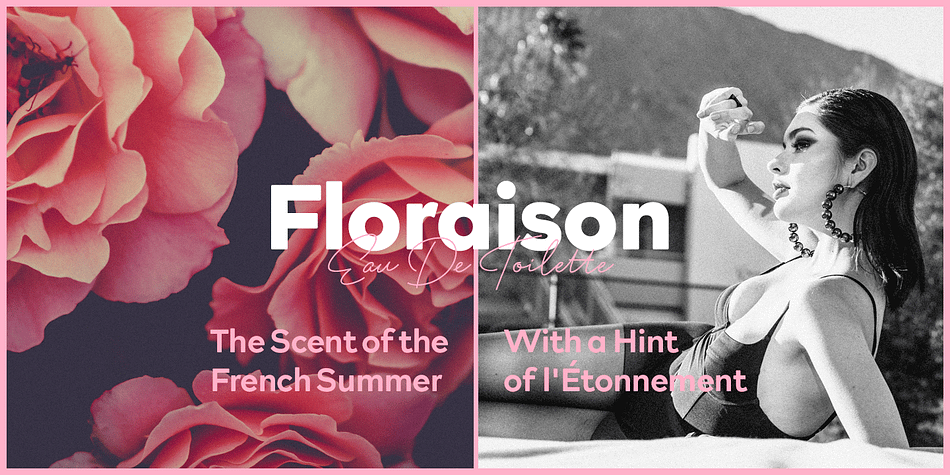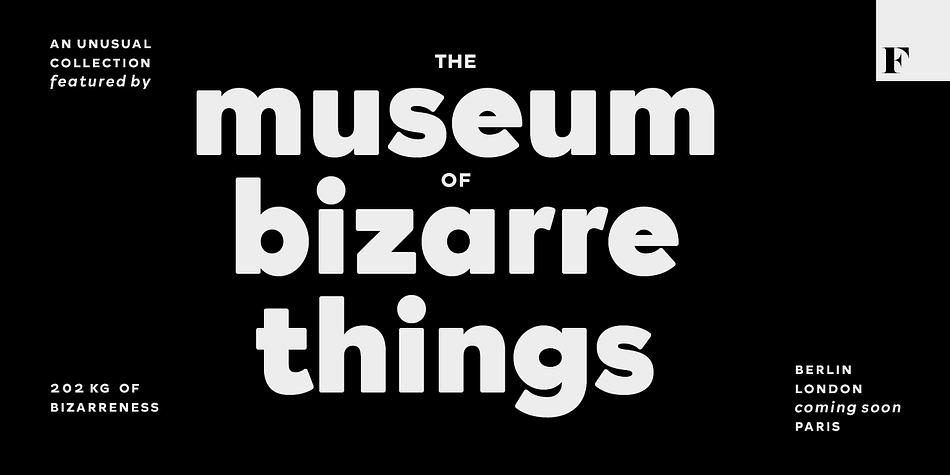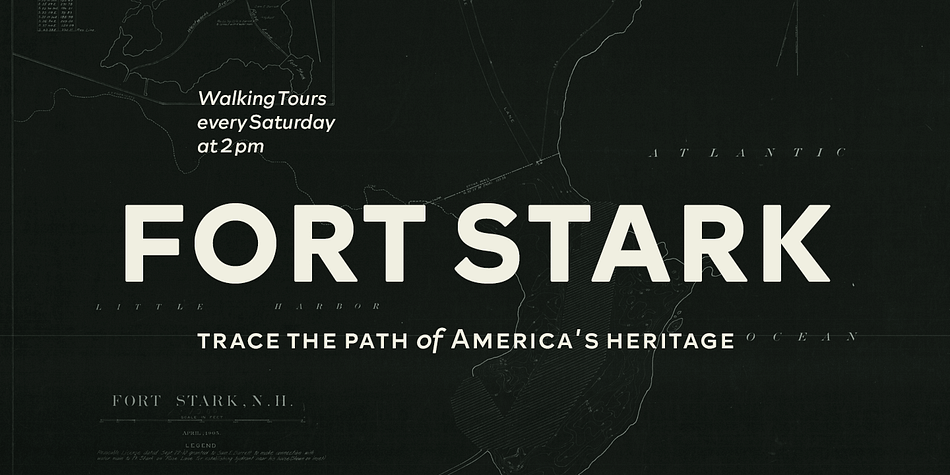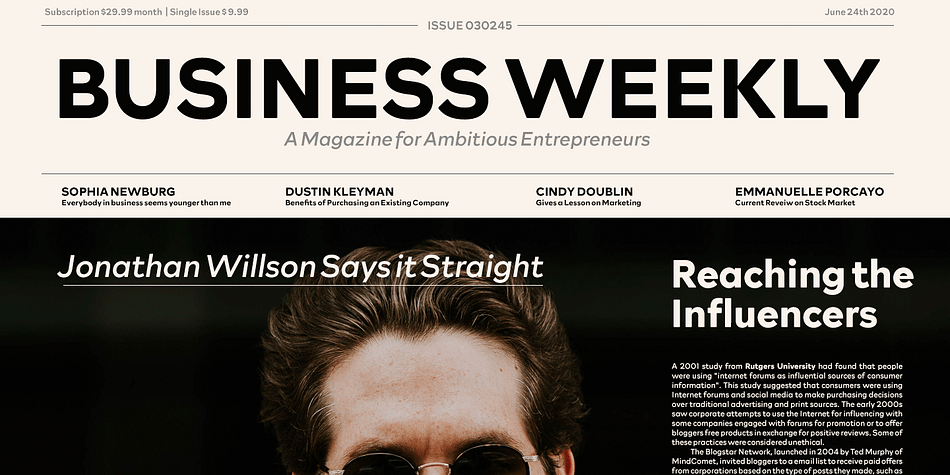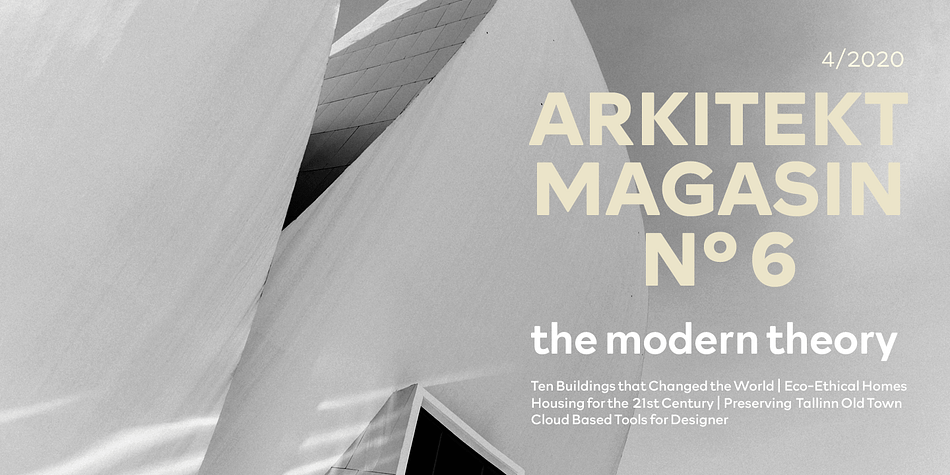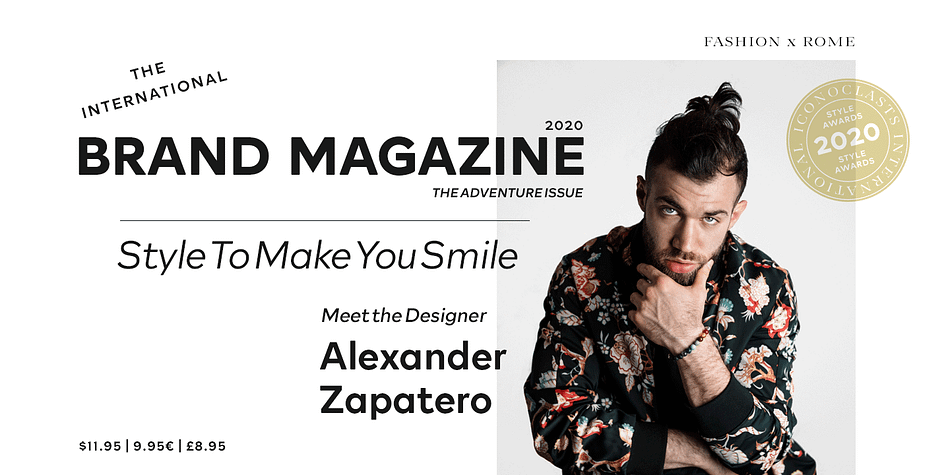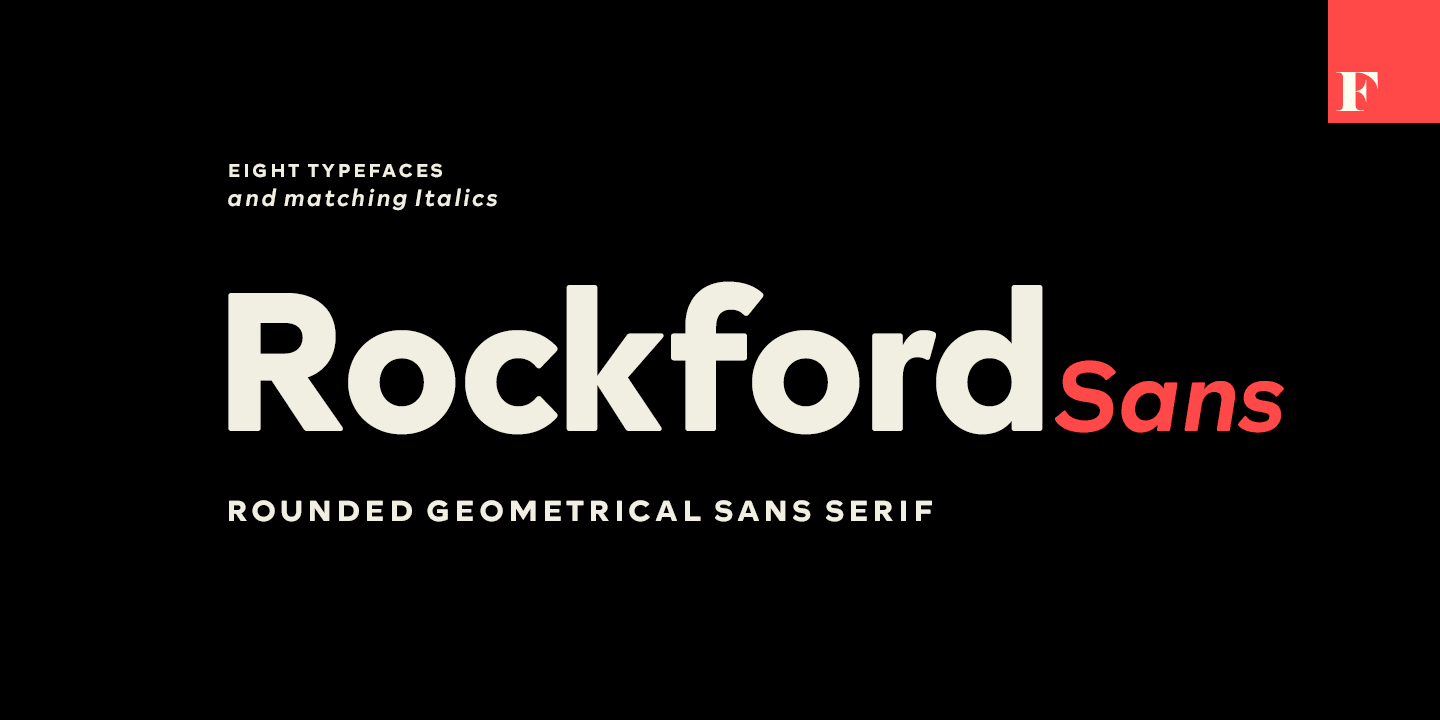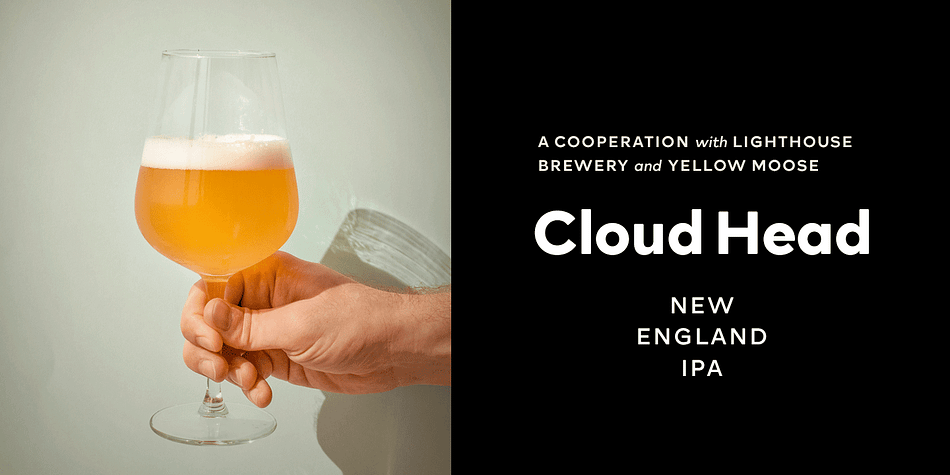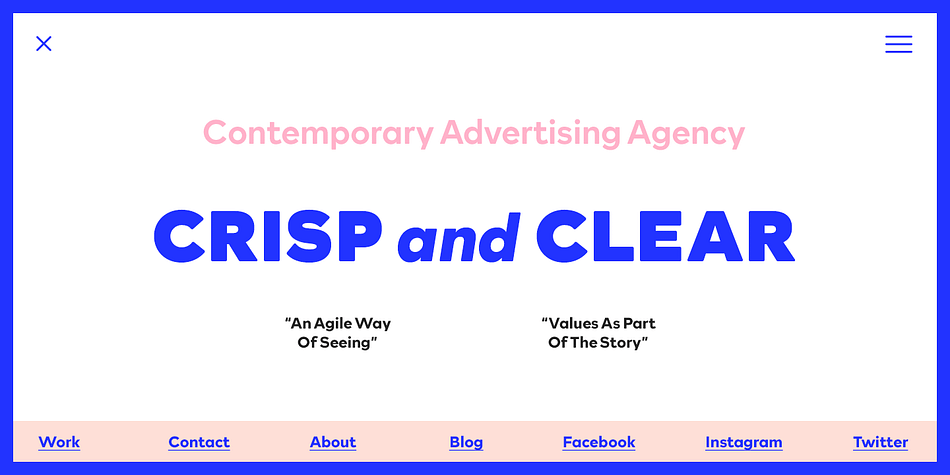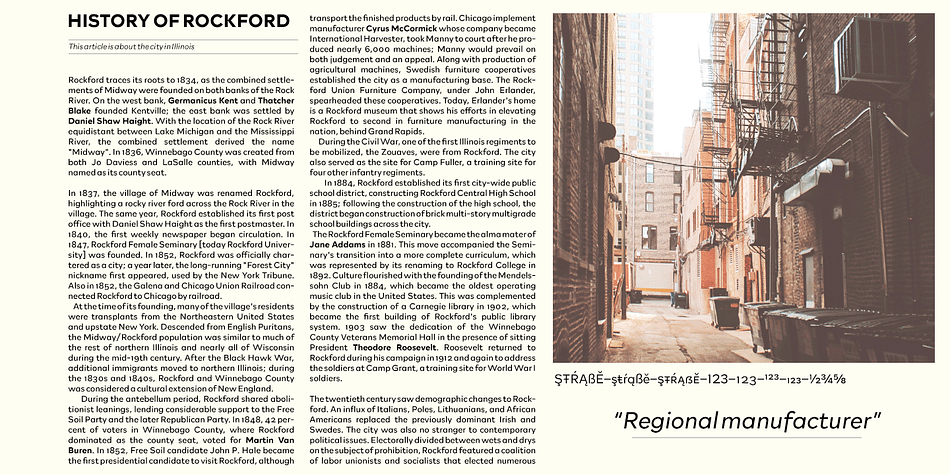
Designed by Teo Tuominen, Erik Bertell and Emil Bertell, Rockford Sans is a sans serif font family. This typeface has fourteen styles and was published by Fenotype.
Rockford is a geometrical Sans Serif with subtly rounded edges. Rockford comes in eight weights and matching Italics. With its large x-height and round features it’s both legible and friendly. It’s suited to cover a wide variety of tasks from editorial to brand design, advertising, logos and more.
Rockford is equipped with plenty of OpenType features to perform well. Rockford comes with Small Caps, Old Style Figures, superior and inferior figures and fractions.
| Style | Sans Serif |
| Designers | Teo Tuominen, Erik Jarl Bertell, Emil Karl Bertell |